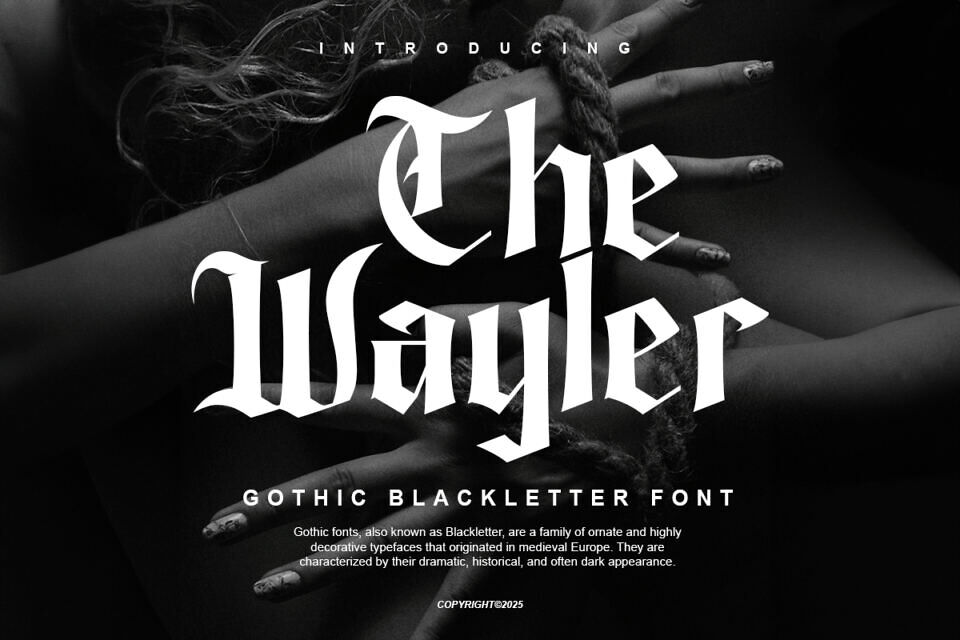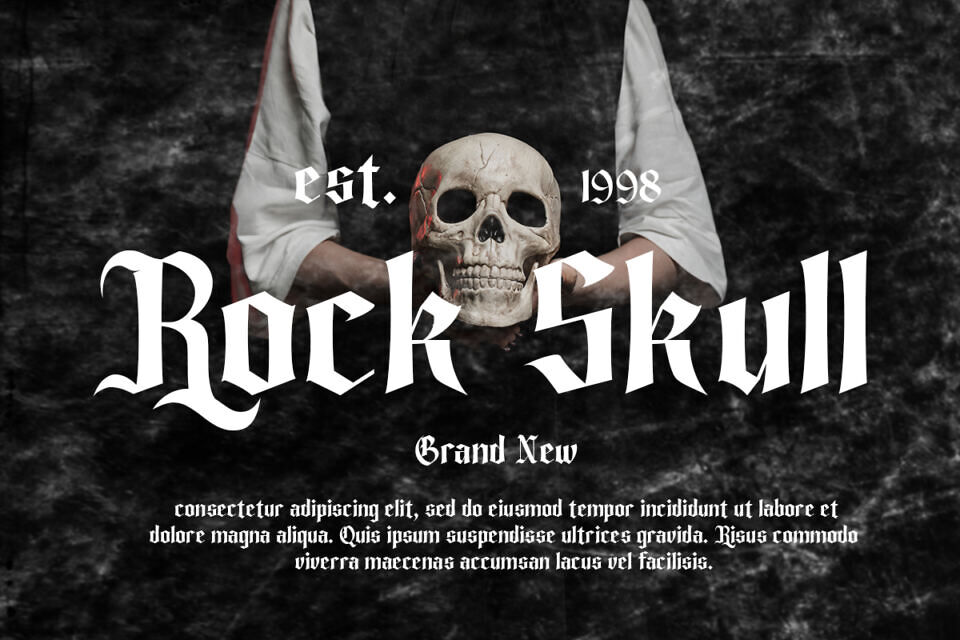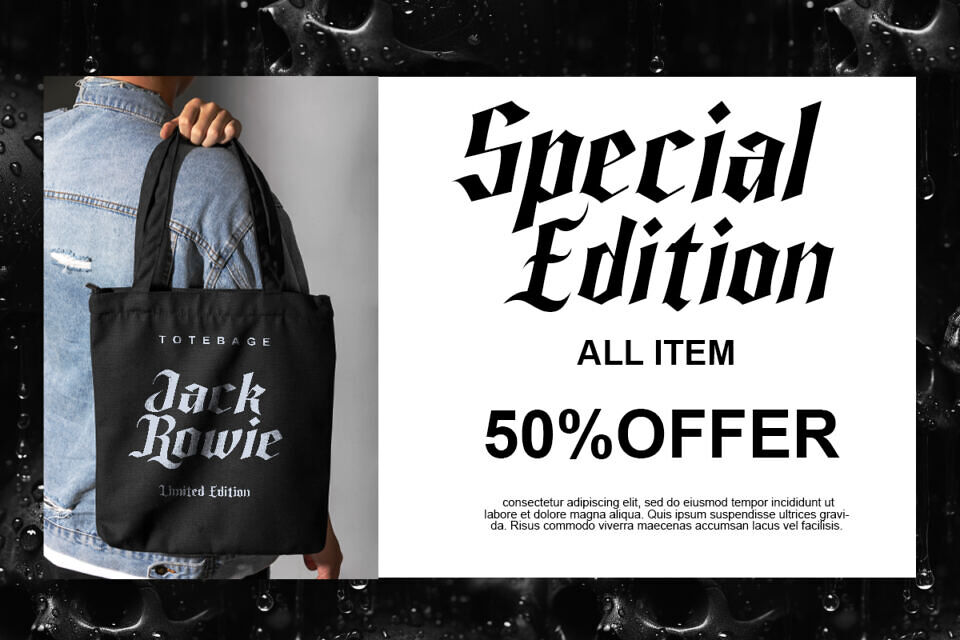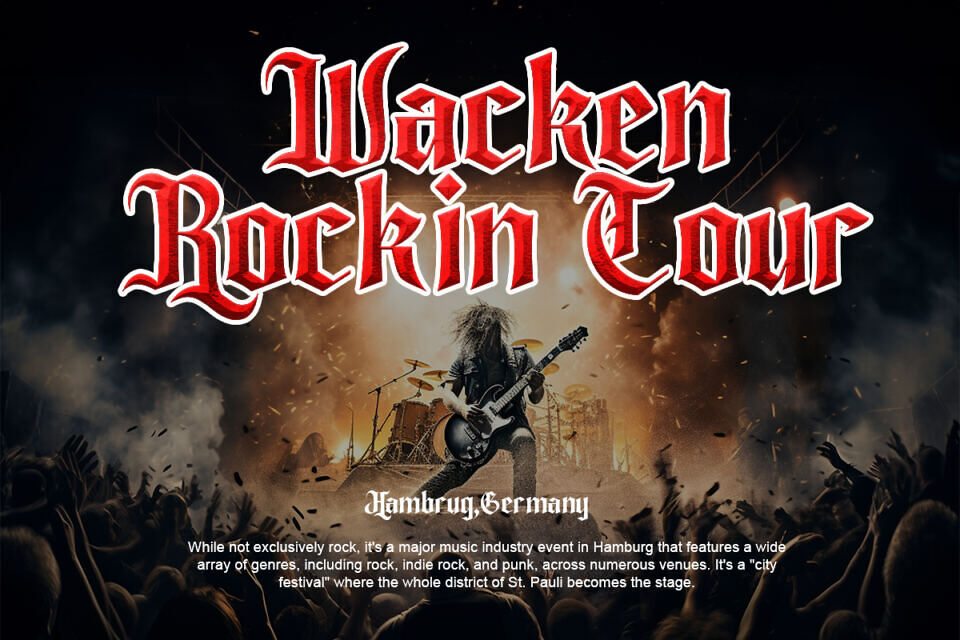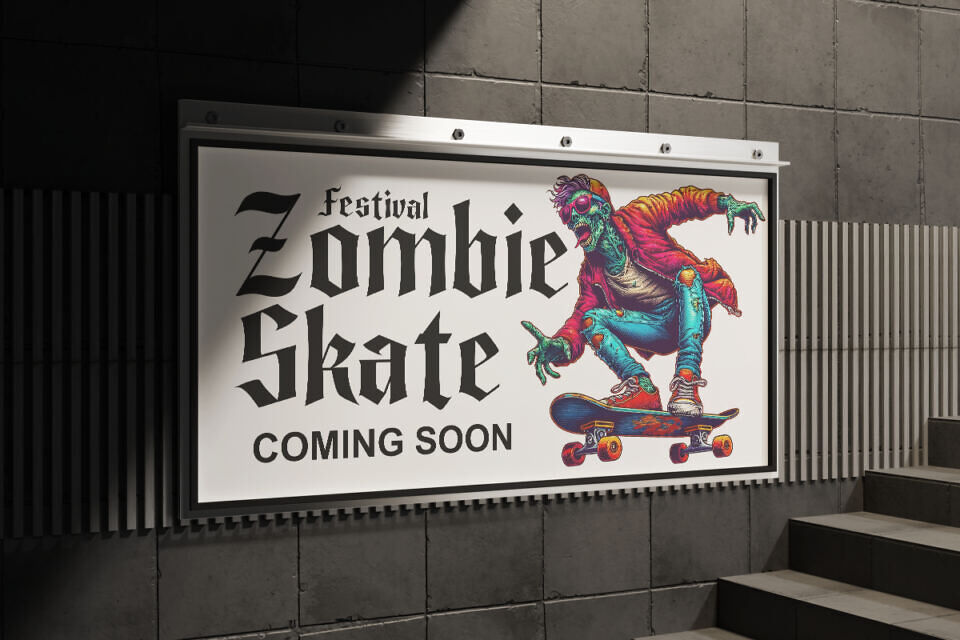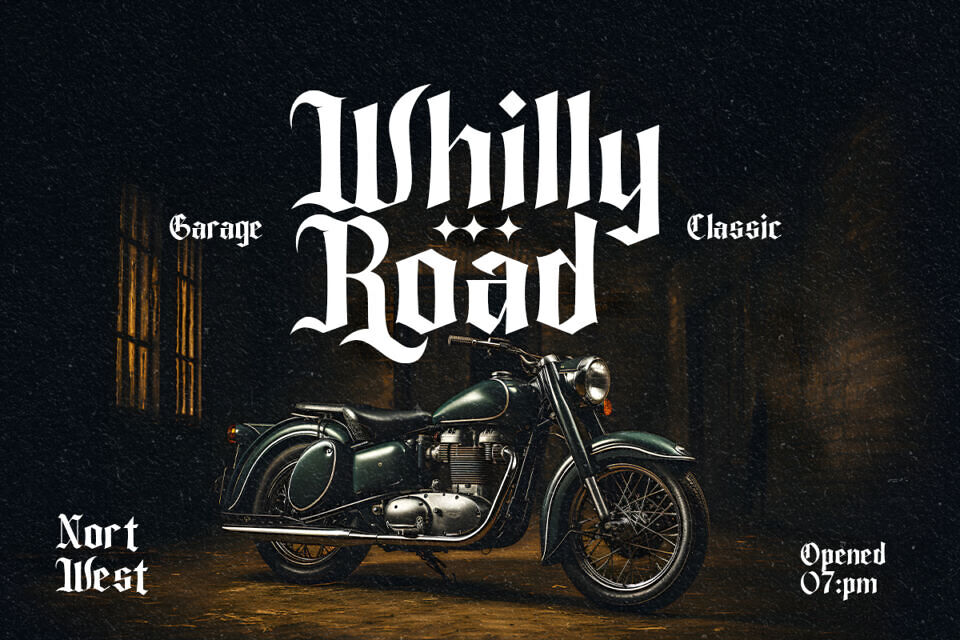
The Wayler Font
The Wayler is Gothic Blackletter Font, unique blackletter for your design.forged for those who dare to stand out. With sharp edges, aggressive strokes, and a rebellious soul, this font embodies the raw energy of metal, gothic, and underground aesthetics.